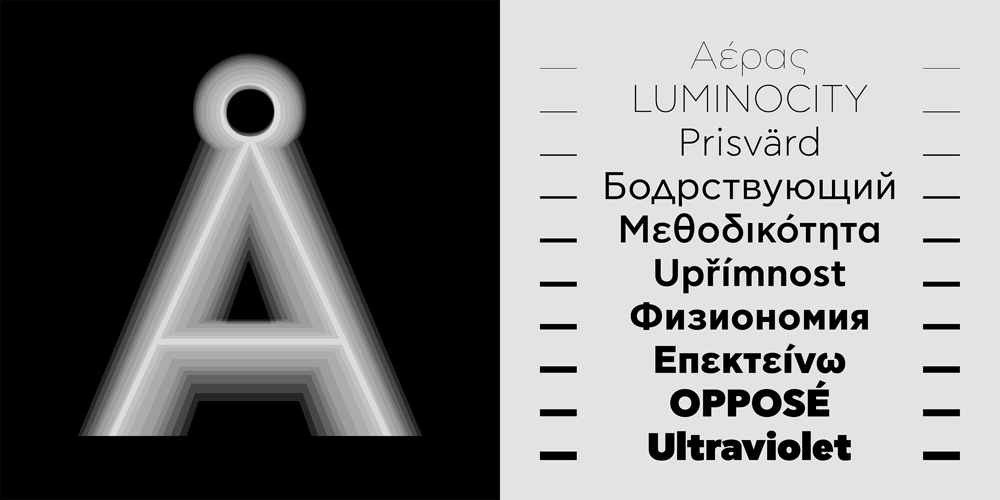
CF Asty Font Family was designed by Panos Haratzopoulos and published by Fonts.GR. CF Asty contains 20 styles and family package options. A monolinear geometric typeface that derives from the 20th century sans serifs, urban signage and design simplicity of Paul Rener’s Futura. CF Asty though, does not faithfully follow the strict geometry of Futura, including simultaneously humanitarian design elements such as other popular Sans (Avenir, Gotham, Neutraface, Gill Sans, etc.). This approach, combined with the relatively high x-height, makes it legible in titles as well as long texts. Particular attention was paid to the purity of Greek characters which without exaggerated design, combines perfectly with the style and simplicity of Latin.The latest version supports Western & Extended Latin, Greek and Cyrillic character sets and all numerals.Available in Variable file at no extra cost.